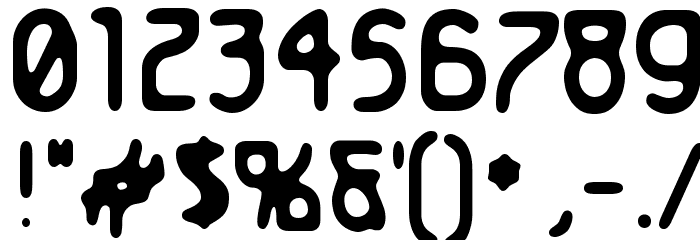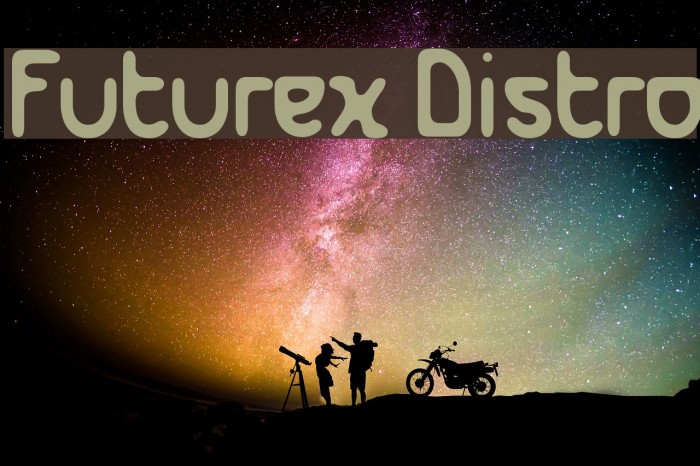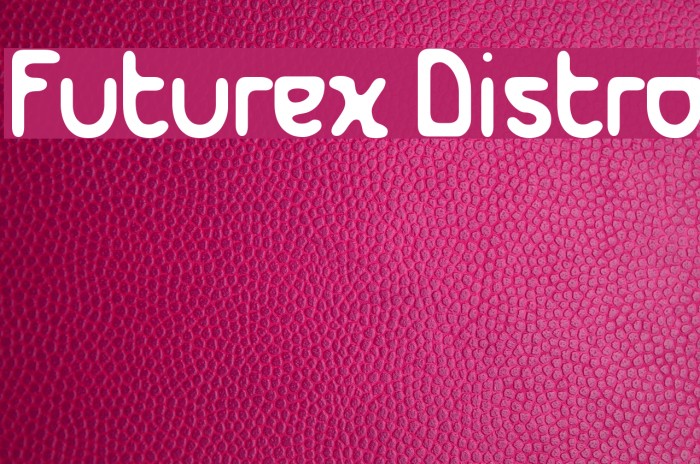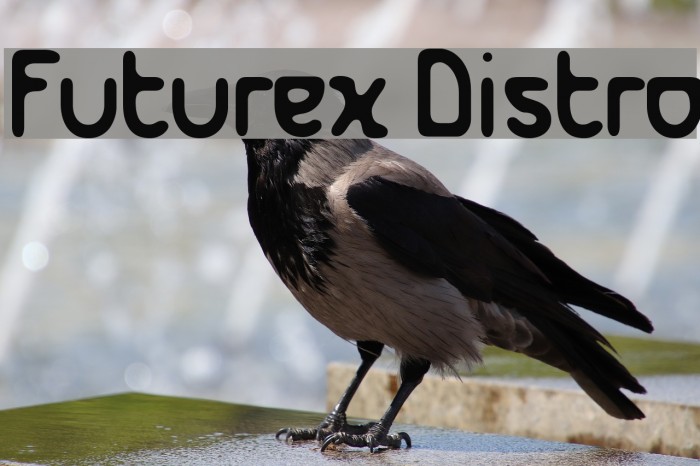
Futurex Distro Font
Futurex Distro Description
This font features a bold, rounded style with a playful and futuristic aesthetic. The characters are uniformly thick, creating a strong visual impact. The rounded edges and consistent stroke width give it a friendly and approachable feel. The design is modern and slightly quirky, making it suitable for creative and contemporary projects. The numbers and special characters maintain the same playful style, ensuring consistency across all text elements.
| Proposed Projects | Ideal for branding, posters, children's books, and tech-related designs. |